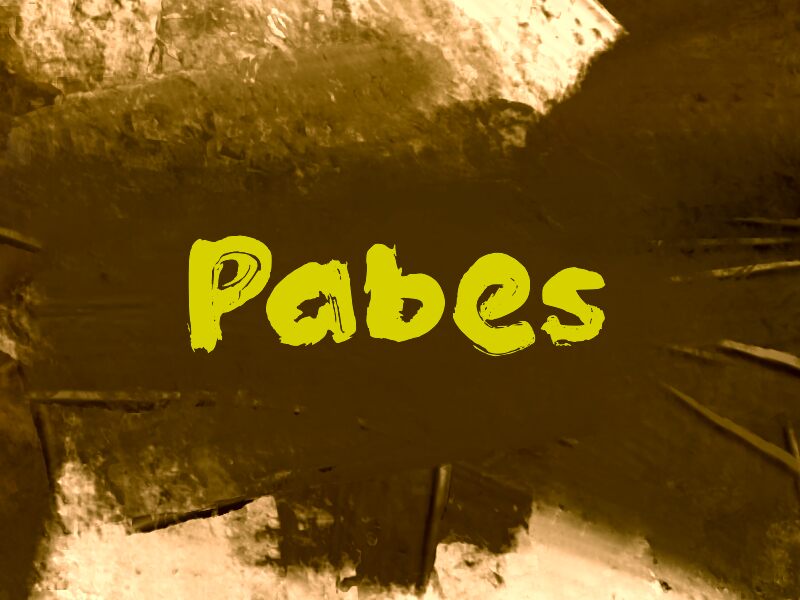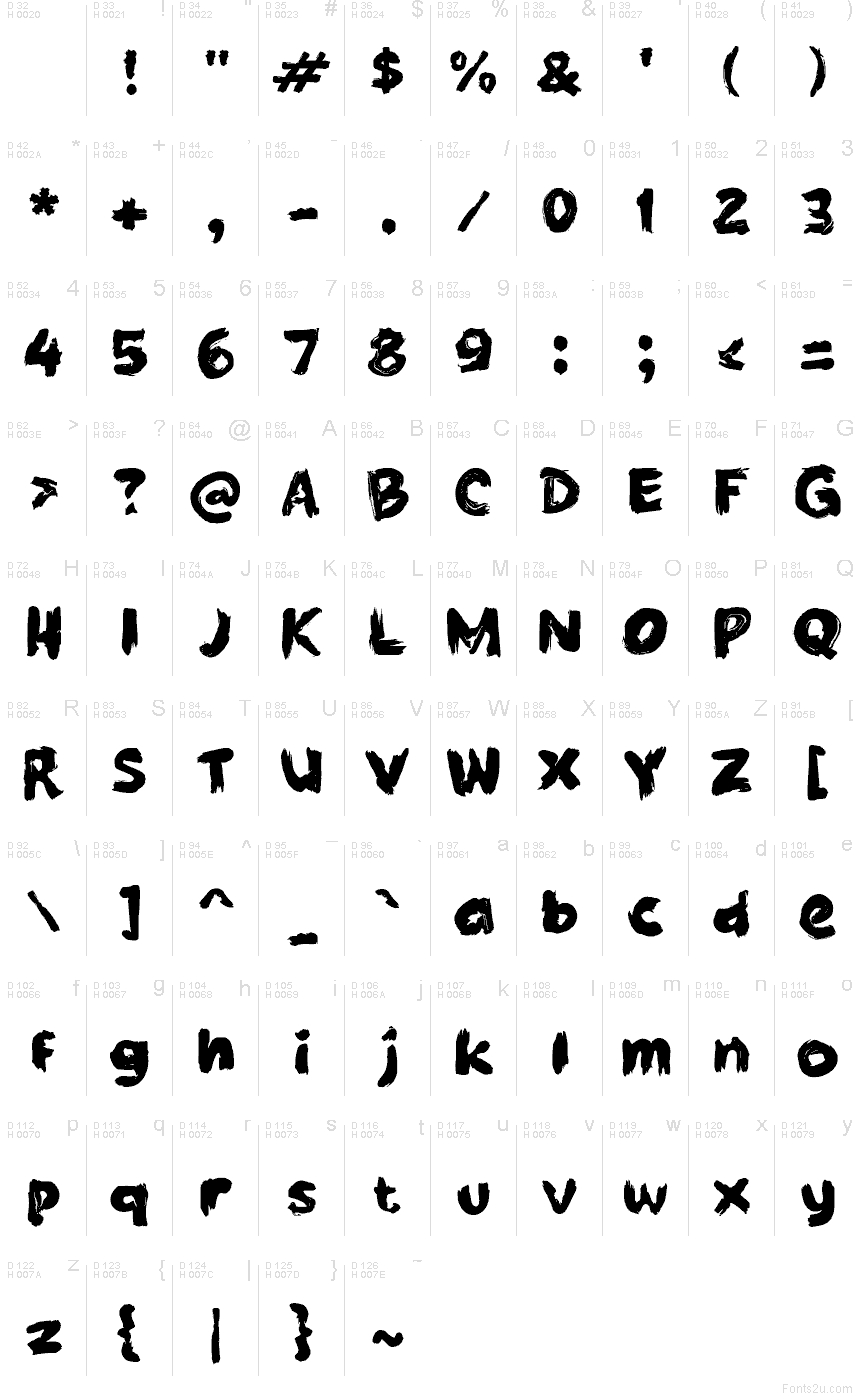
Pabes
Pabes font by wep is a free brush distorted typeface that looks like it’s been hacked out of thick, wet ink with a frayed brush. The letters are heavy, splattered, and slightly warped, with rough edges that feel raw and hand-made rather than “grungy for effect.” There’s a sense of energy and motion in every stroke, like a word caught mid-swipe across a wall or cardboard sign.
Using Pabes, you get instant attitude for gig posters, zines, album covers, YouTube thumbnails, horror titles, and protest graphics. This free font shines at large sizes where its inky textures and irregular forms can really breathe, while a simple, clean sans-serif underneath handles smaller supporting text. Pair the two, keep Pabes for short headlines, and you’ve got a layout that looks loud, urgent, and unmistakably human.